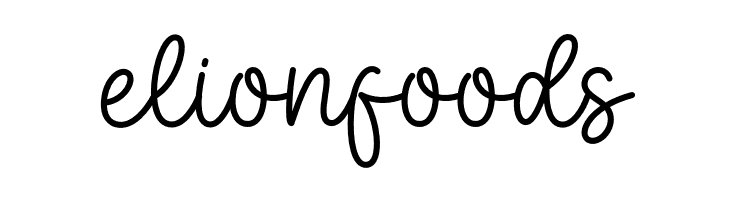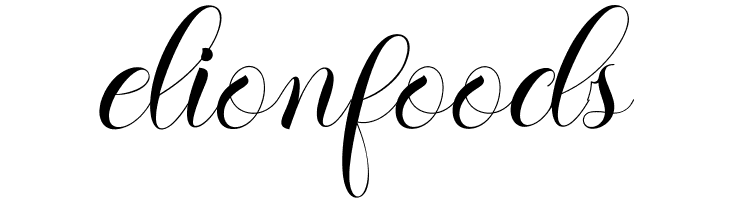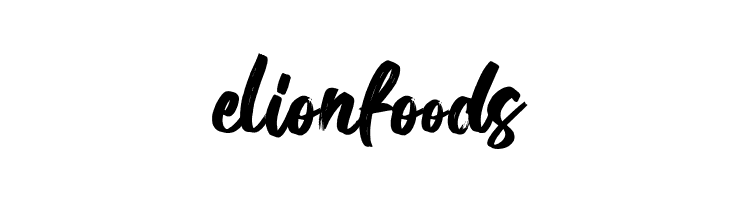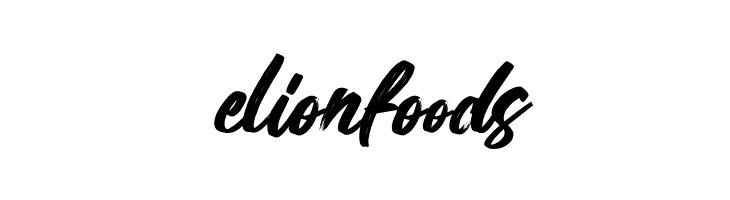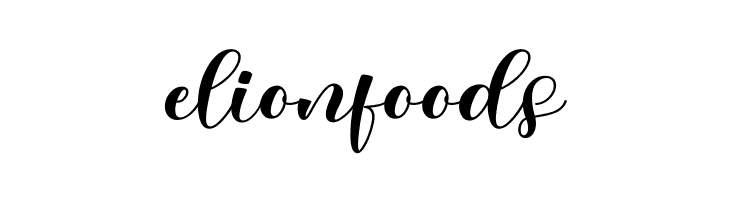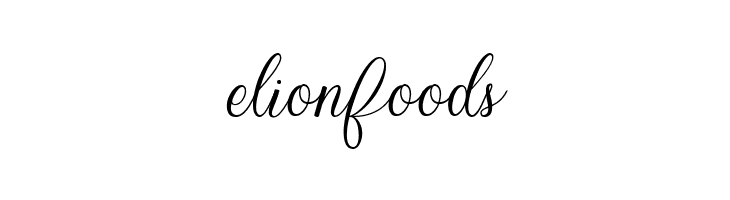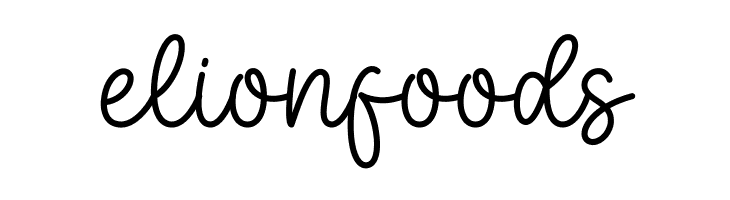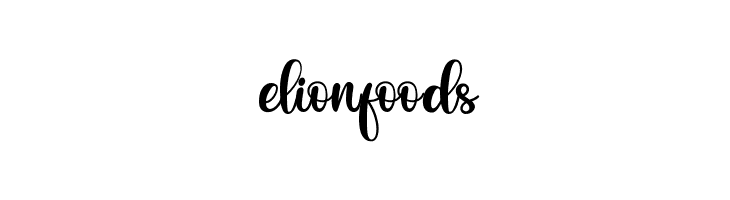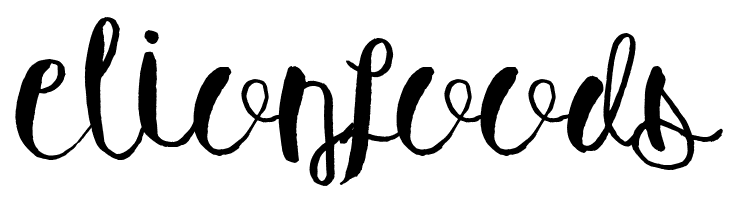
• Baleno Handi
A playful, flowing script font with smooth, continuous strokes and a handwritten charm.
• Baleno Handi
A playful and flowing script font with a natural handwritten style.
• BaleriaScript
A lively and elegant script font with flowing, connected letterforms.
• balerina
An elegant script font with high contrast and ornate flourishes.
• Balerina
A graceful script font with flowing, cursive letters and a sophisticated, handwritten style.
• Balestic
A bold, brush script font with dynamic, hand-painted strokes.
• Balestic Italic
A bold, energetic script font with fluid, interconnected strokes.
• Balestya normal
A graceful and elegant cursive font with flowing, intricate characters.
• Baley Sun
A whimsical, artistic handwritten font with flowing, interconnected letterforms.
• Baley_DEMO
An elegant script font with flowing cursive style and intricate swashes.